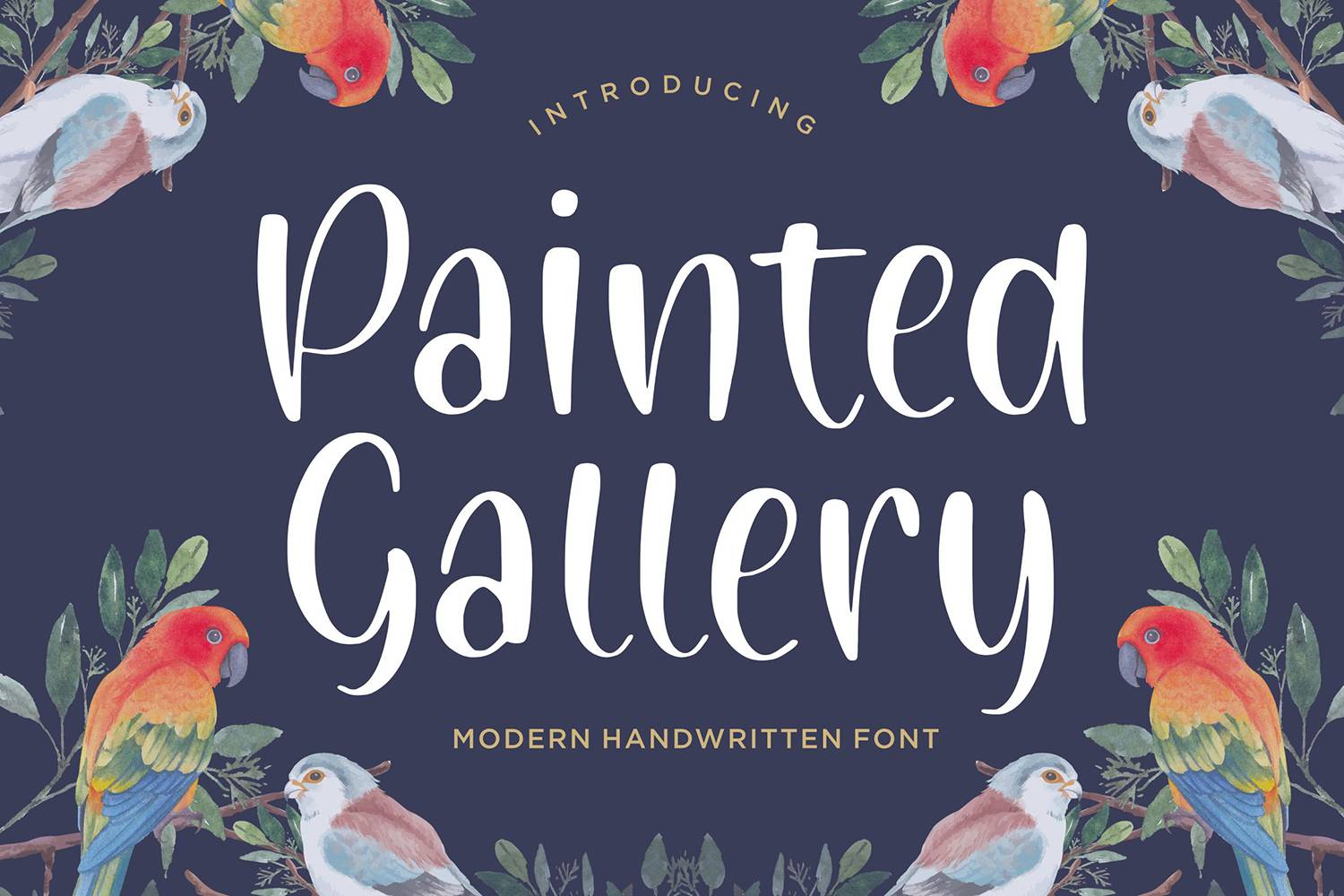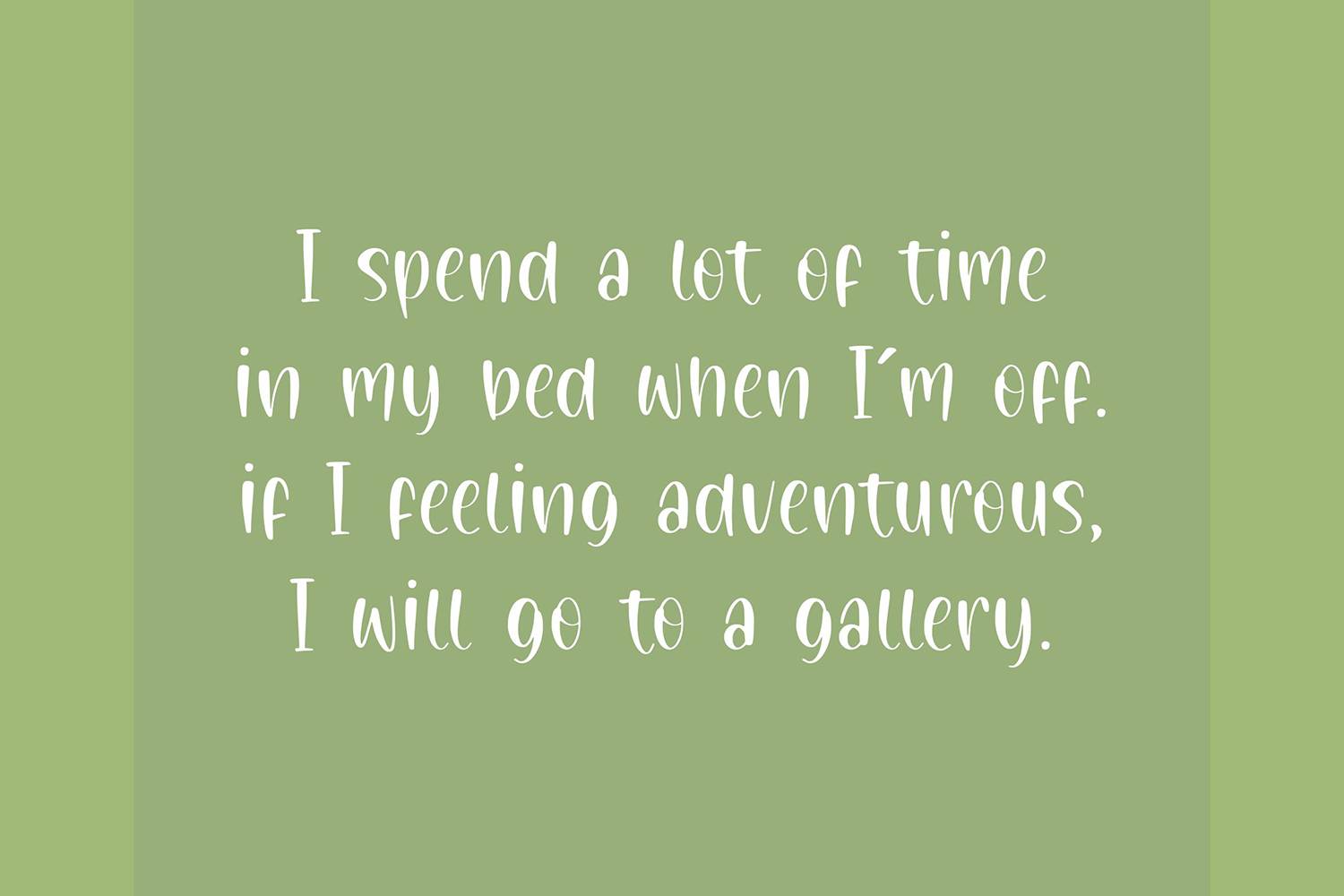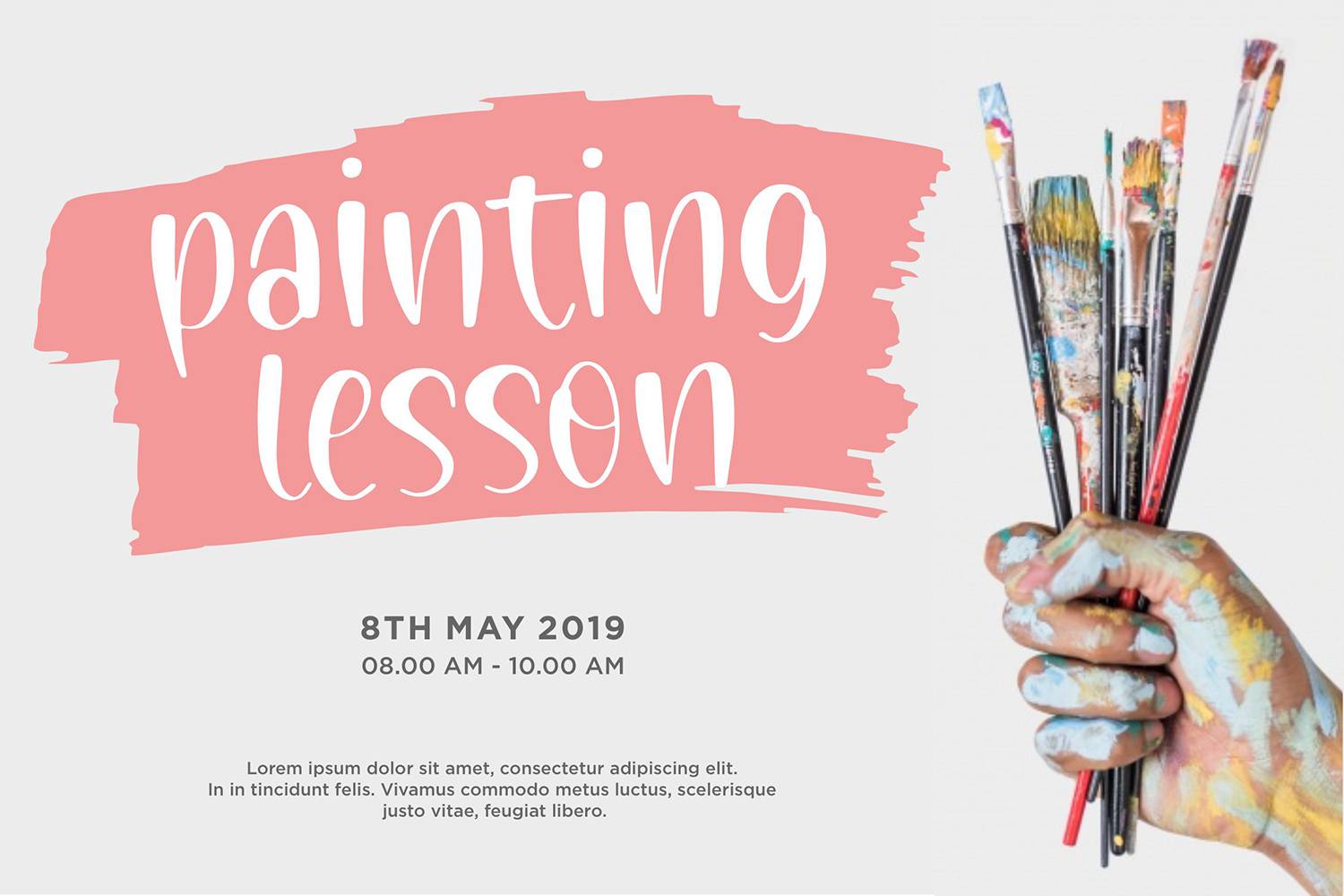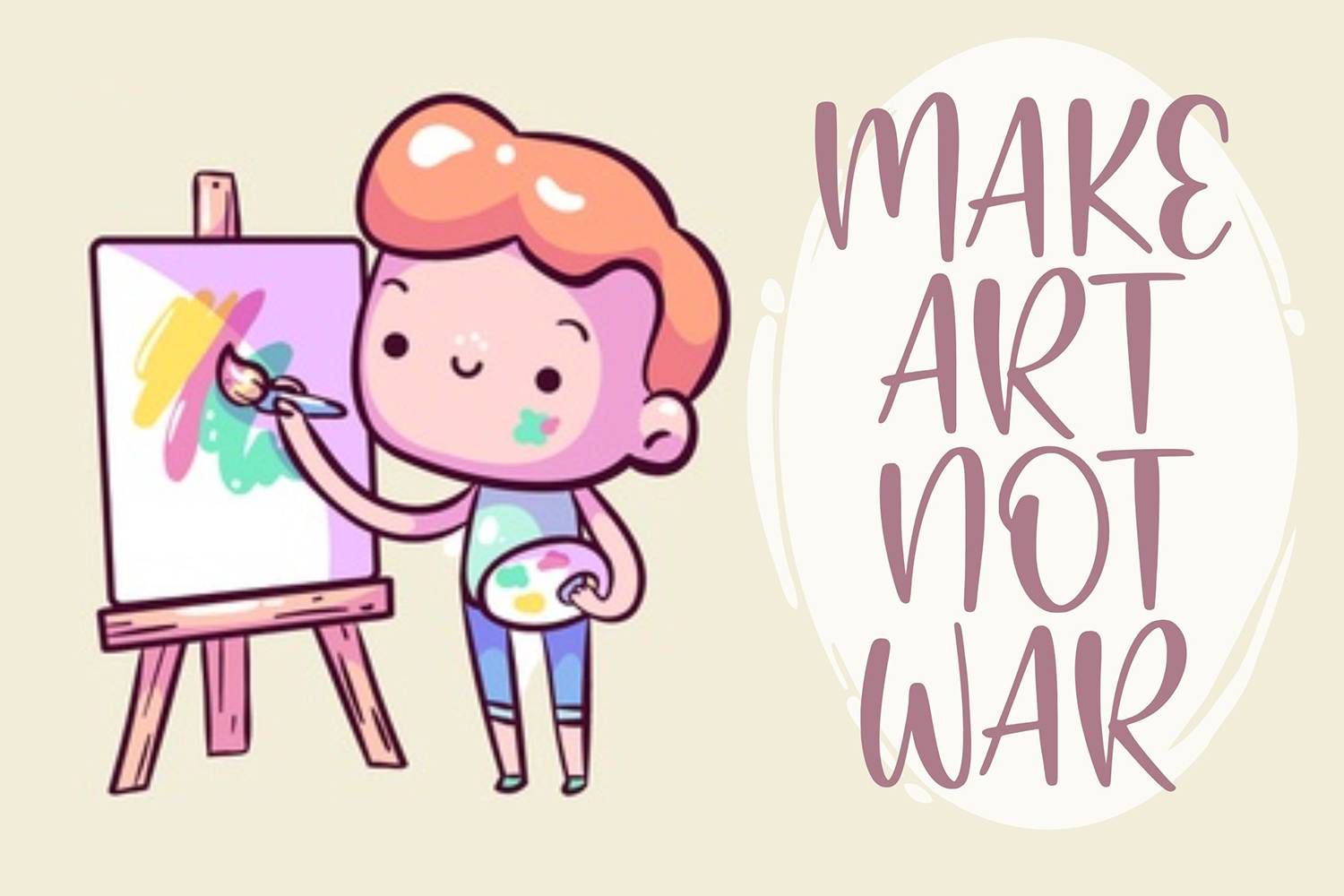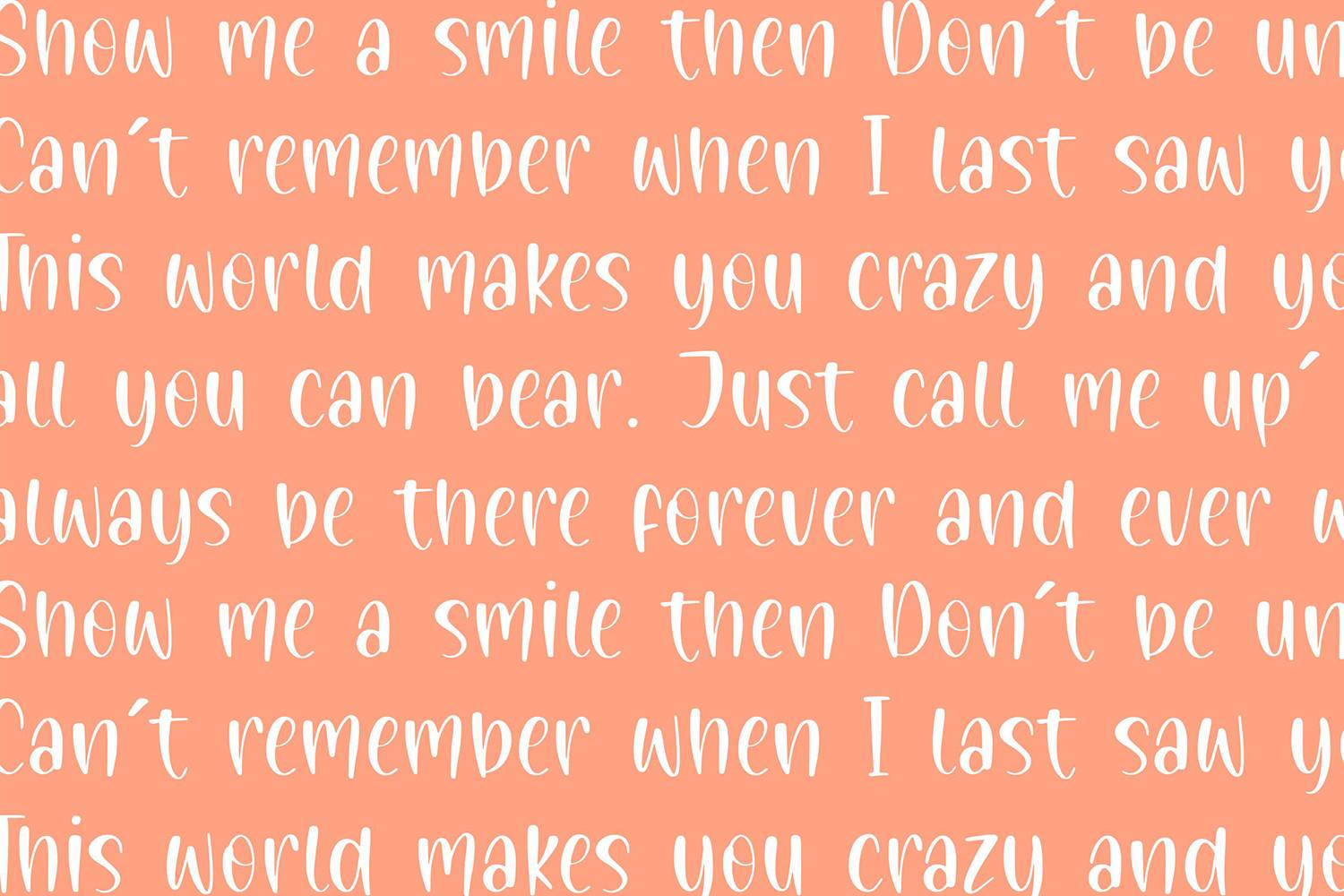
Painted Gallery is a playful, hand-drawn script font with tall, narrow letterforms and whimsical curves that create a friendly and approachable feel. Its casual yet elegant style makes it perfect for creative projects, invitations, and branding that seek a charming, artistic touch. This font works best in headlines and logos where a distinctive, personal character is desired.
Painted Gallery Font
About Painted Gallery Font